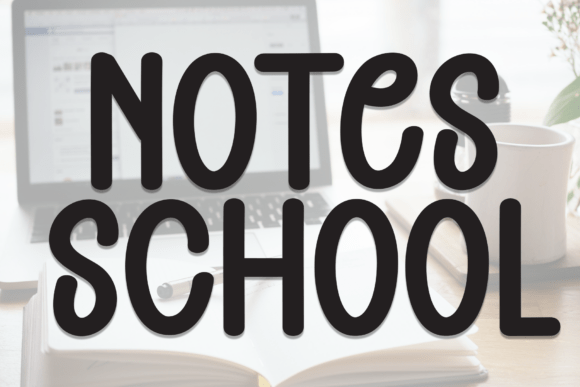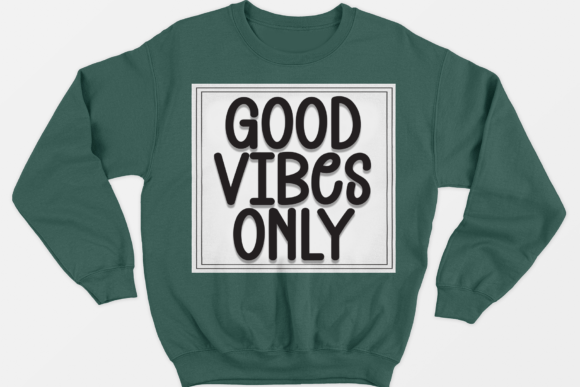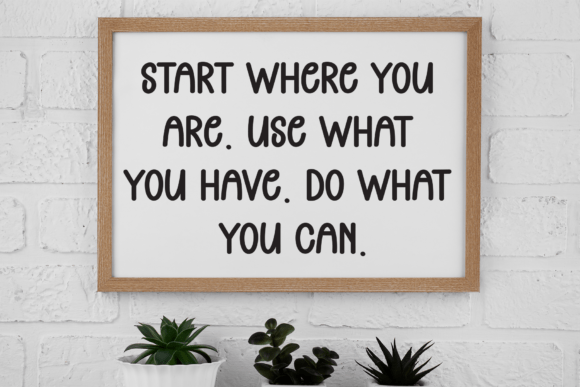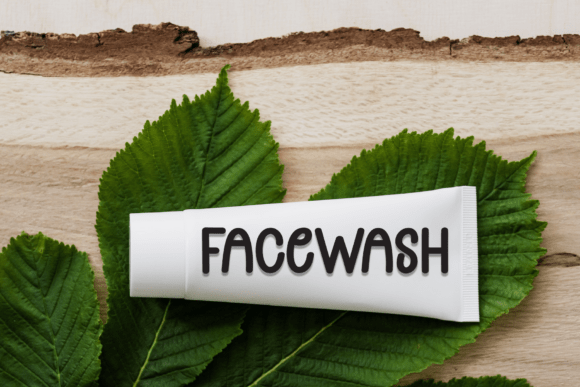
Notes School Font
About the Notes School Font
Discover the charm of Notes School Font. This font is a perfect blend of modern aesthetics and classic appeal. Presenting a charmingly sweet handwriting-inspired display font that exudes an amiable appeal. Exuding an air of whimsy and fun, its eccentric style is perfect for adding a playful touch to your design endeavors. It wonderfully captures the essence of a heartfelt personal note, making it idyllic for creating memorable wedding invitations, thoughtful cards, or any design project longing for a joyful, personalized stroke. Embrace your creative endeavors with this delightful font.
Notes School Font is ideally suited for headlines, short text blocks, and branding elements where a playful, hand-drawn aesthetic is desired. It works exceptionally well on packaging for children’s products, invitations, and social media graphics. However, its whimsical nature makes it unsuitable for body text, long paragraphs, or user interfaces requiring high readability.
The font’s personality is undeniably cheerful and approachable. Its charming imperfections lend themselves to projects that prioritize a friendly, personalized feel. Consider pairing Notes School Font with a clean sans-serif like Open Sans for contrast and readability in logos or short-form publications. Alternatively, a classic serif like Garamond could offer a sophisticated counterpoint for a more refined application.
For a more playful pairing that reinforces its hand-drawn quality, a script font with a similar weight and personality would create a cohesive feel. However, avoid pairing with overly geometric or stark fonts, as this might clash with the font’s organic character.
Notes School Font Usage Examples
Notes School Font Example